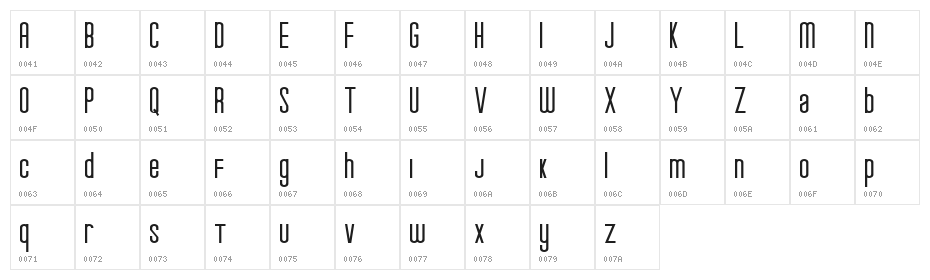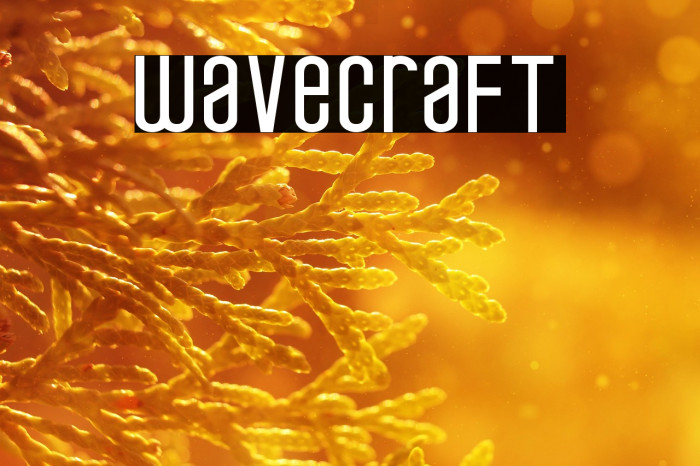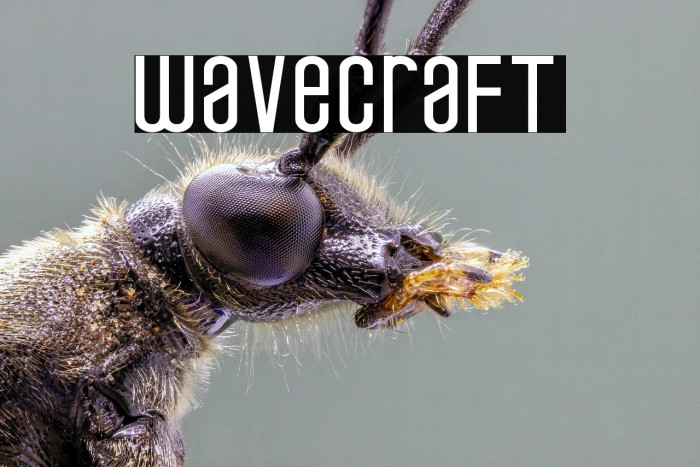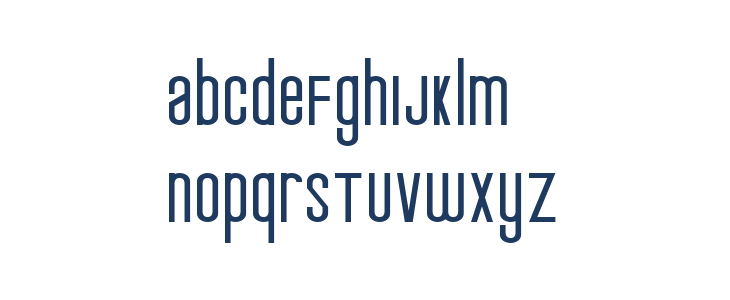
wavecraft Font
wavecraft Description
This font features a modern and sleek design with tall, narrow characters that convey a sense of elegance and sophistication. The uppercase and lowercase letters maintain a consistent height, contributing to a uniform appearance. The strokes are clean and straight, with minimal curves, giving it a geometric feel. The font's vertical emphasis is complemented by its tight character spacing, making it ideal for creating impactful headlines or titles. Its simplicity and clarity ensure readability while adding a contemporary touch to any design.
| Proposed Projects | Ideal for branding, advertising, posters, and modern web design projects. |